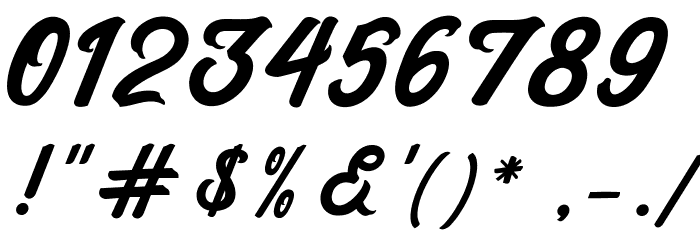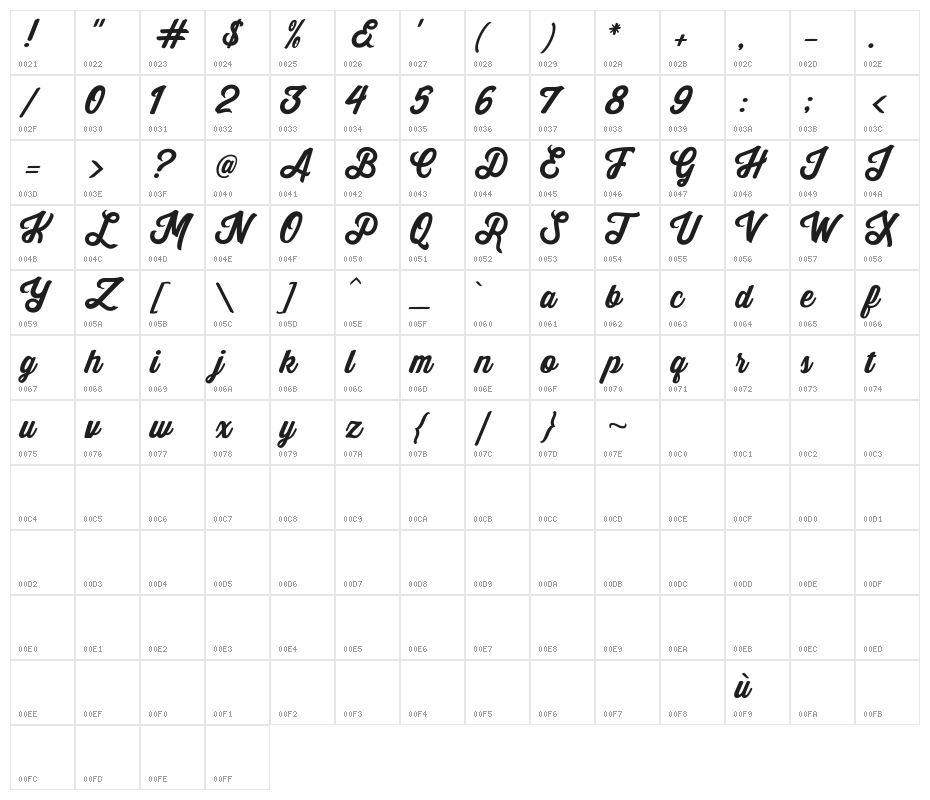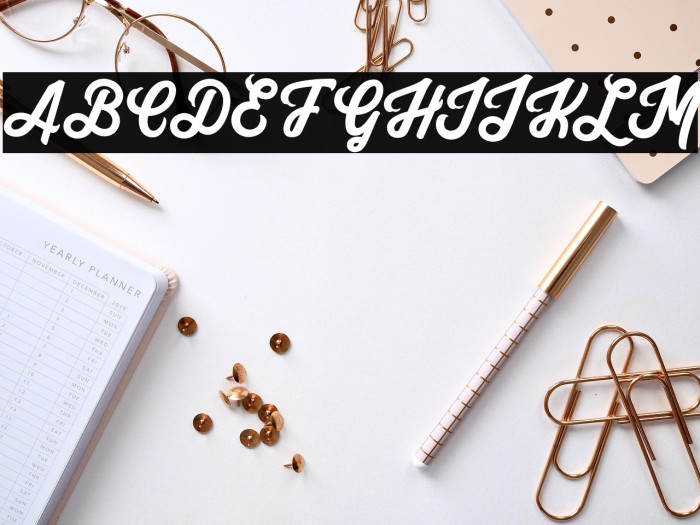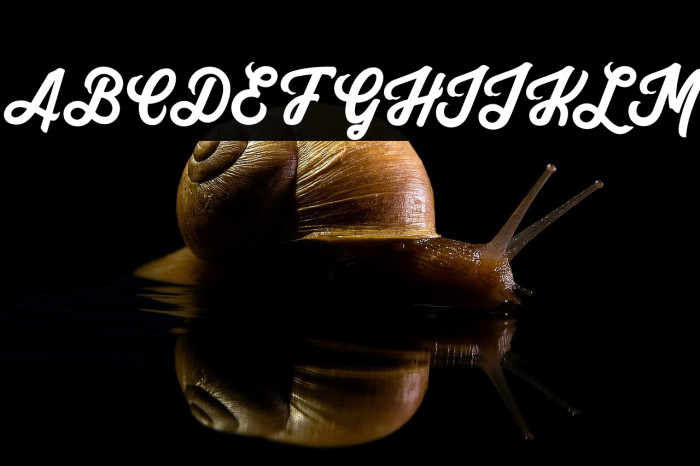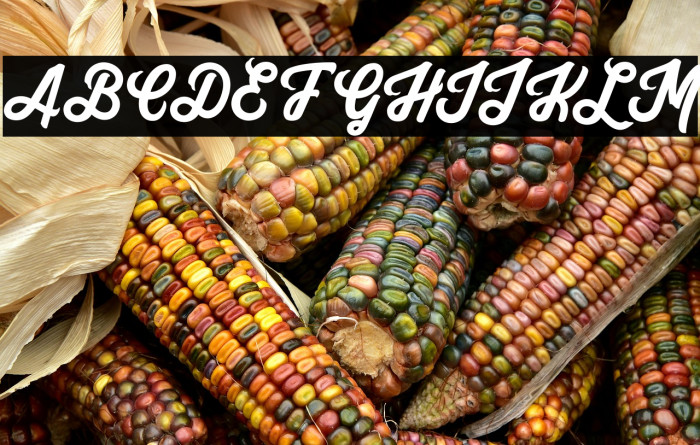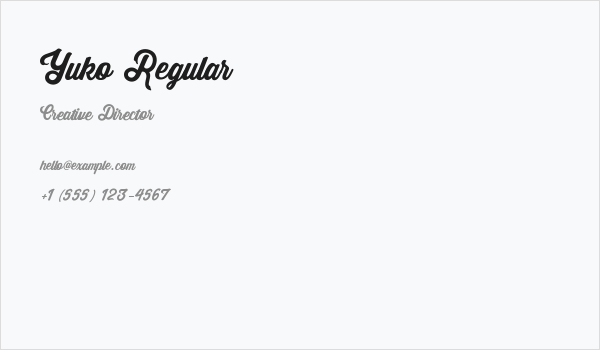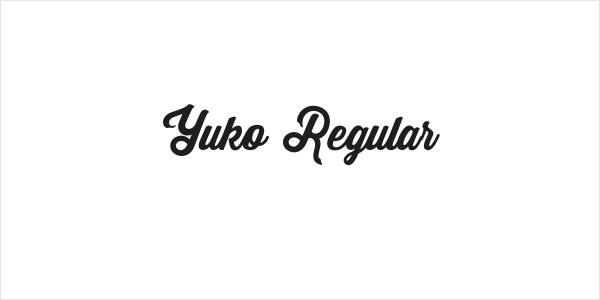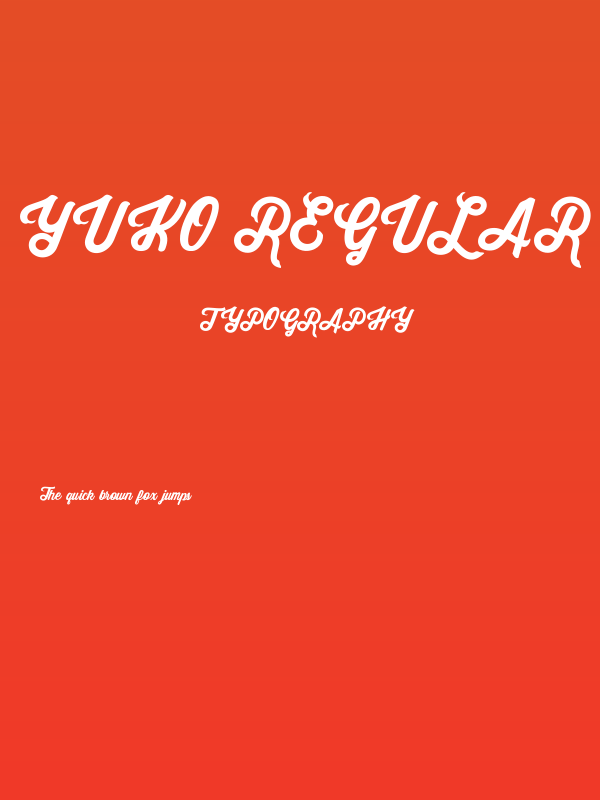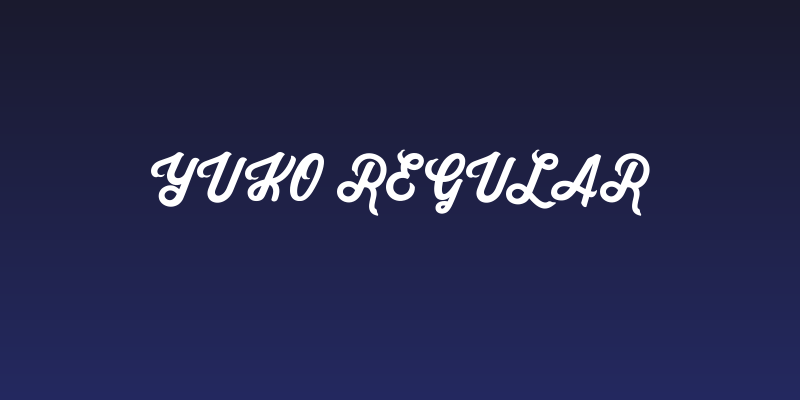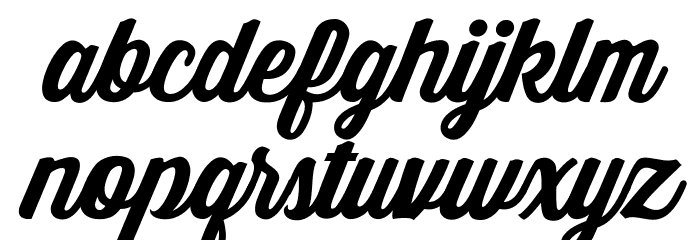
Yuko Regular Font
Yuko Regular Description
This font features a bold, cursive style with smooth, flowing lines that give it a dynamic and elegant appearance. The uppercase letters are slightly more elaborate, with pronounced curves and loops, while the lowercase letters maintain a consistent, rounded form. The numerals are designed to match the overall style, with a playful yet sophisticated look. Special characters are seamlessly integrated, maintaining the font's cohesive aesthetic. The overall impression is one of modern elegance, suitable for a variety of design applications.